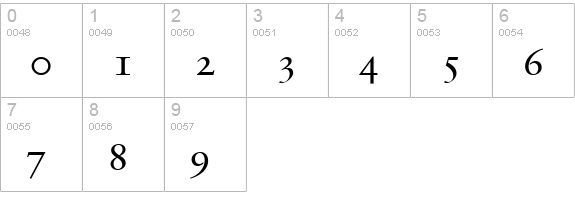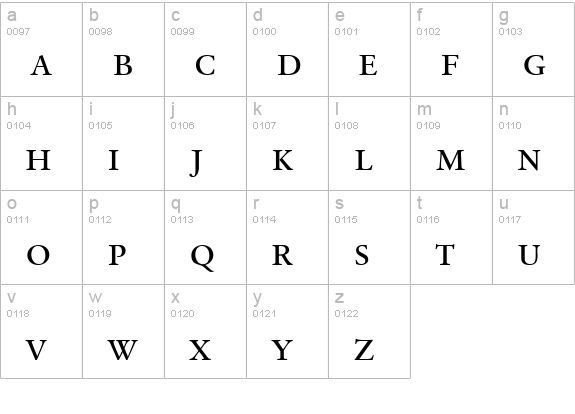
GaramondRetrospectiveOldStyleSSiSmallCaps Medium Font Details
GaramondRetrospectiveOldStyleSSiSmallCaps Medium is a balanced, medium-weight variant in the GaramondRetrospectiveOldStyleSSiSmallCaps typeface family \xE2\x80\x94 well suited to sub-headlines, navigation, and balanced editorial work.
Garamond Retrospective Old Style SSi Small Caps Medium font exudes elegance and sophistication with its timeless design. This versatile typeface combines the classic elements of Garamond with a modern twist, making it perfect for a wide range of projects including branding, editorial design, and more. What sets Garamond Retrospective Old Style SSi Small Caps Medium font apart is its meticulous attention to detail, from the graceful serifs to the balanced letterforms. The medium weight strikes the perfect balance between readability and impact, making it ideal for both body text and headlines. Best of all, Garamond Retrospective Old Style SSi Small Caps Medium font is available for free download at FontsMarket.com. So whether you're a designer looking to add a touch of sophistication to your projects or a writer in need of an elegant typeface, this font is a must-have addition to your collection. Download it today and elevate your design work to the next level.